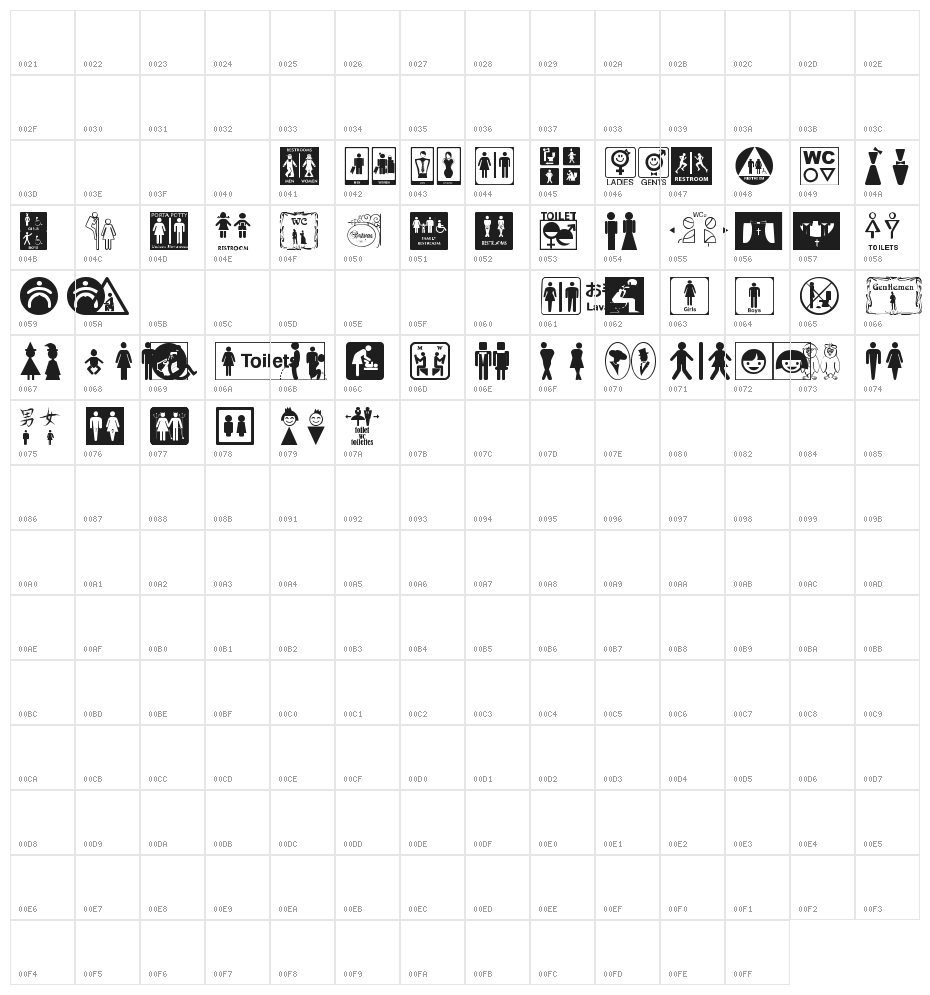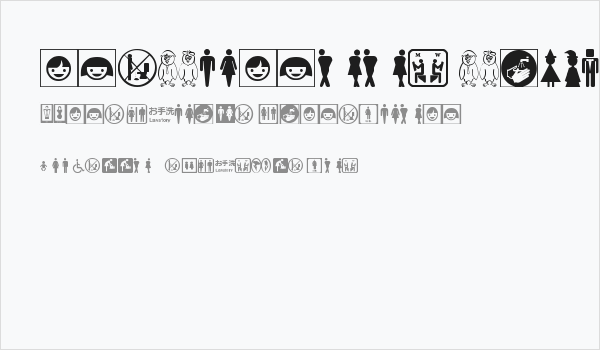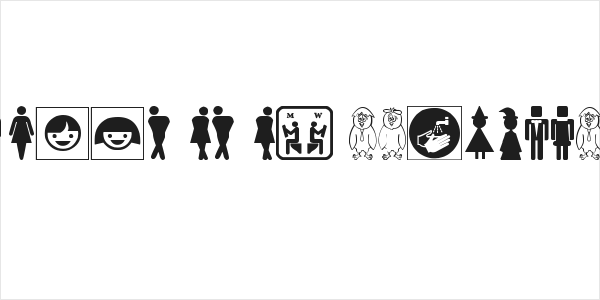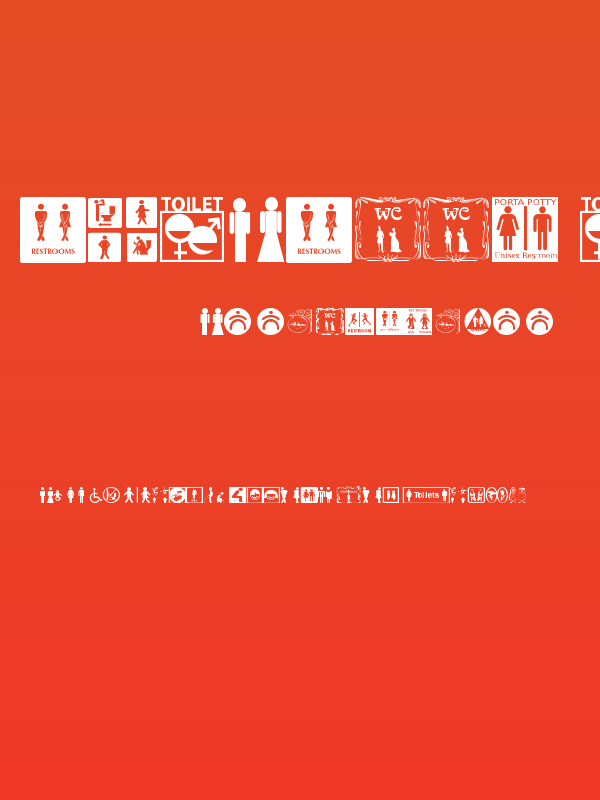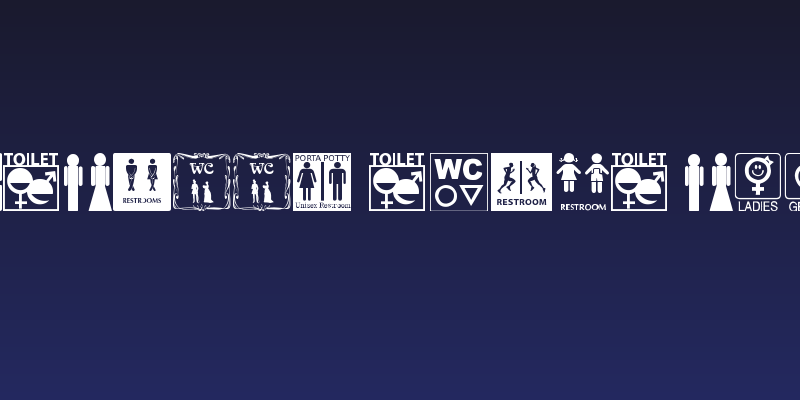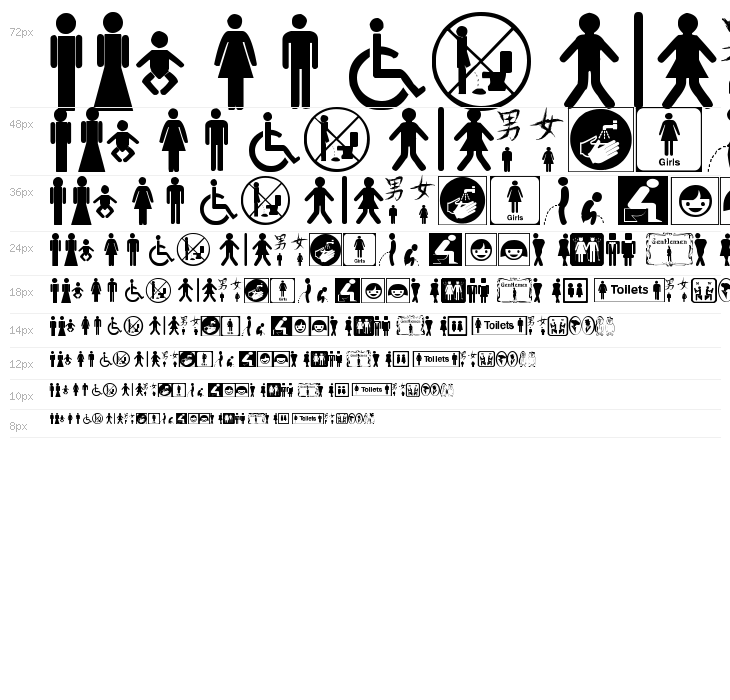
restroom signs tfb Font
restroom signs tfb Description
This collection features a variety of restroom sign icons, each designed to clearly indicate gender-specific facilities. The icons range from traditional male and female silhouettes to more modern and abstract representations. Some signs incorporate additional symbols such as wheelchair accessibility, while others use cultural or humorous elements to convey their message. The designs are primarily monochromatic, ensuring high visibility and easy recognition. These icons are versatile and can be adapted for use in various public spaces, offering both practicality and a touch of creativity.
| Use Case | Signage, Wayfinding |
| Proposed Projects | Ideal for public restroom signage, wayfinding systems in malls or airports, and inclusive design projects. |